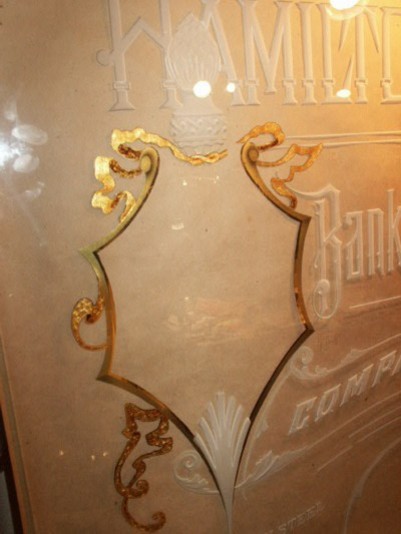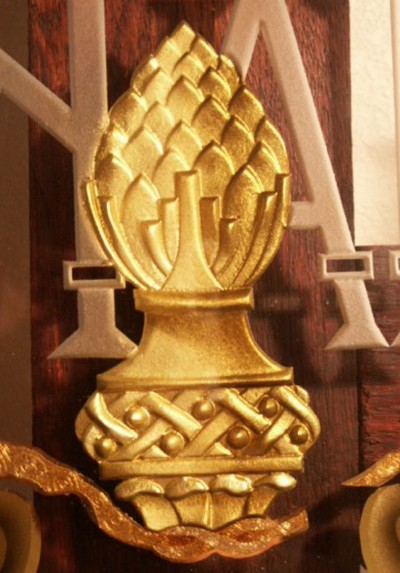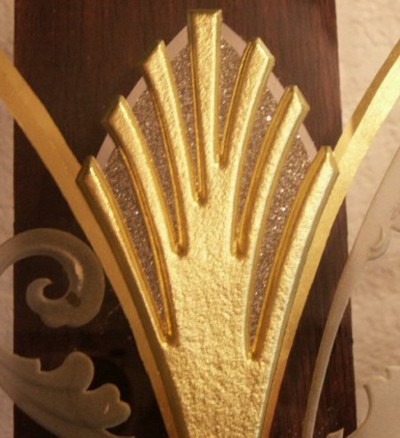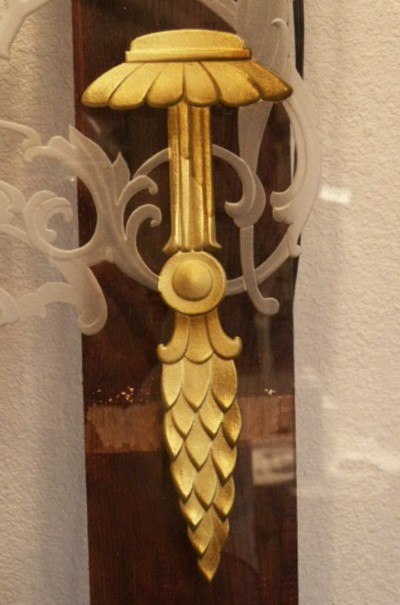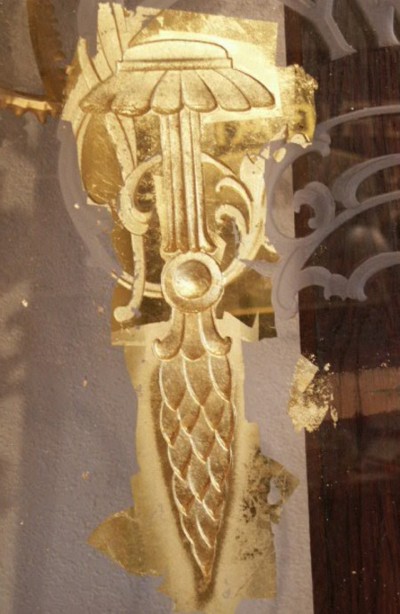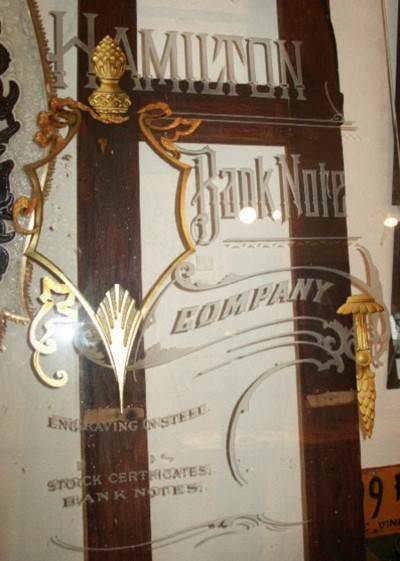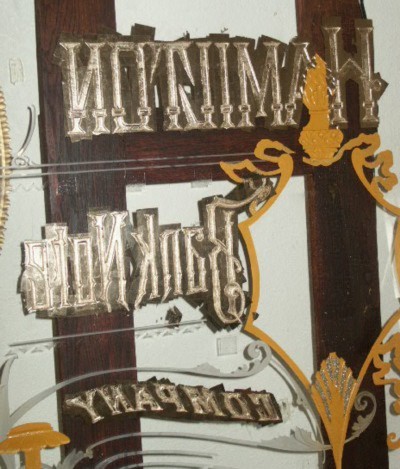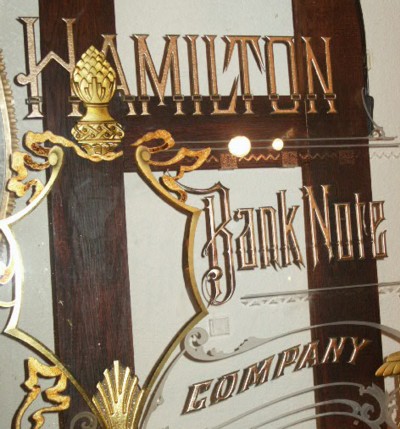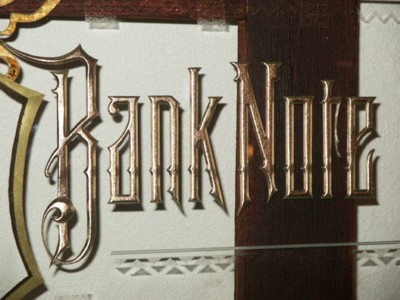
I then proceeded to water gild the robbon in Rouge Gold. Water gilding over embossed varnish is much like gilding over glue chipping as it takes a couple water gilds, then needs to be finished with a surface gild. It's difficult to get the gold to fully go down into the embossed design. After water gilding, I surface gilded it with pulverized red verigated copper leaf. The red copper leaf ends up showing through in the embossed design adding a touch of contrast with the Rouge Gold background. A very fine bright line was left around the ribbon. The pictorial frame was then water gilded in 23K gold over the airbrushed varnish. When backing up, a bright line was left o the interior side of the frame. The end effect is a mirrored gold outline with a simulated bevel created from the airbrushed tinted varnish.
Step 4 - Gilding Sandcarved Ornaments
Firstly, I sealed the sandcarved ornaments with 2 coats of Frog Juice (an optically clear synthetic overcoat). This will enable me to water gild over the sandcarving. Next, I opted to try a new technique and airbrush a transparent glaze into the sandcarved areas to create a shaddow effect. I used transparent gold screen ink and a dot of black Fibroseal in Frog Juice for the glaze. I hacked up some pieces of vinyl and pieced together some masking over the ajoining sandcarved areas that I didn't want the glaze to go into. (It was alright for the glaze to be on the smooth glass because it can easily be scraped off.) This is the glaze as viewed from the front of the glass.
I then water gilded the ornaments with 23K gold. Like most "non-flat" gilds, it took 2 water gilds, then a surface gild. It was then backed up with Fine Gold ochre backing paint.
Here is the R/H ornament after gilding. You can see how the airbrush shading has added an additional effect to the element.
Here's the upper ornament, as viewed from the front of the glass, after the excess gold has been removed. A small piece of razor blade is used to scrape off the excess gold and backing paint. It scrapes off clean at the edge of the sandcarving.
This is the ornament at the bottom of the pictorial frame. After gilding and cleaning, I water gilded a stripe of paladium leaf, then filled the centers with silver glass glitter.
And here's the overall view. Now it's on to gilding the main copy. The sandcarved elements are sealed one at a time, then gilded. This way if any stray gold gets into an unwanted area of the sandcarving, it can be easily removed. As I look at this piece as it comes along, I will be deviating from some of my initial finishing ideas.
Step 5 - Rendering Main Copy
On this next step of rendering the main copy, I again sealed the sandcarved characters with 2 coats of Frog Juice. After the Frog Juice was dry, I water gilded it twice with 22K Moon Gold. After the second gild, I could still see a few cracks, so I did a surface gild over it, and to be on the safe side, I backed it up with metalic One-Shot mixed to match the gold color. After the One-Shot was dry, I backed that up with Fine Gold back-up.
After all that was dry, I cleaned off the excess gold, and, using a razor blade, scraped off the remaining gold to the sandcarved edge.
Here's a close-up. (The shade on the letter is just cast against the wall behind the piece.)
As seen in the original lithograph, the main copy has split shade on it. The first shade also contains an outline around the rest of the letter. This first shade and outline has been water gilded with 16K pale gold. (The second shade will be water gilded in Paladium leaf.)
The 16K gild is backed up with Fine Gold Ochre back-up. Two different size quills were used, one to paint the outline, and another to paint the wider drop shade.
Hamilton Bank Note reverse glass sign, Step-by-Step Part 2